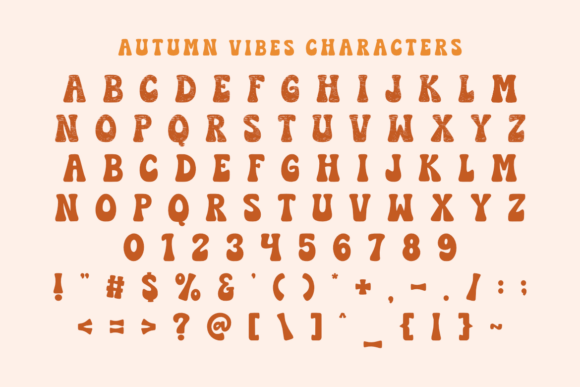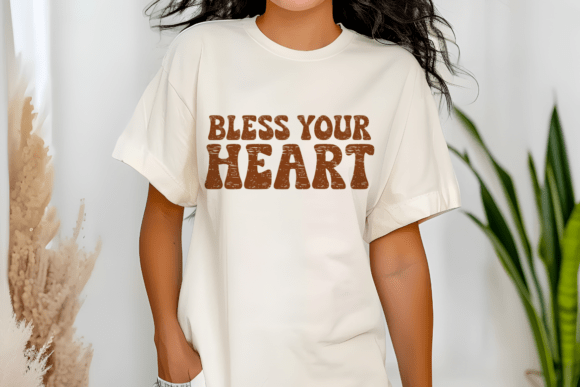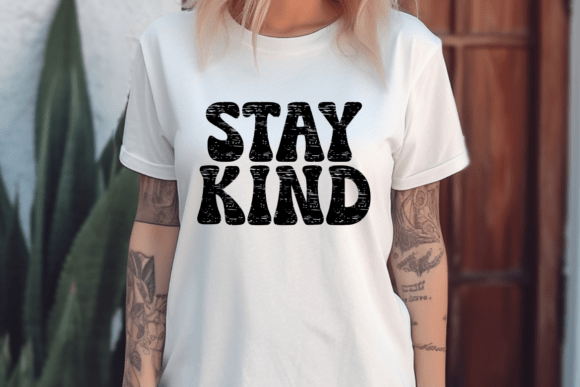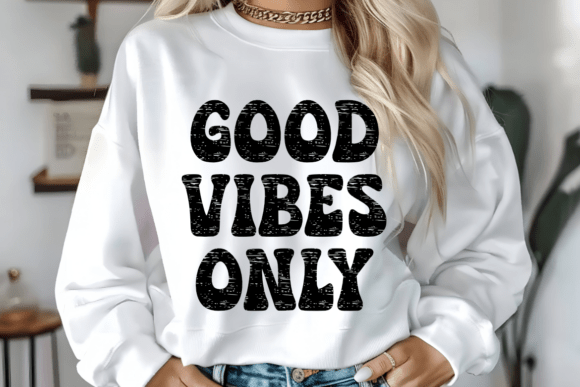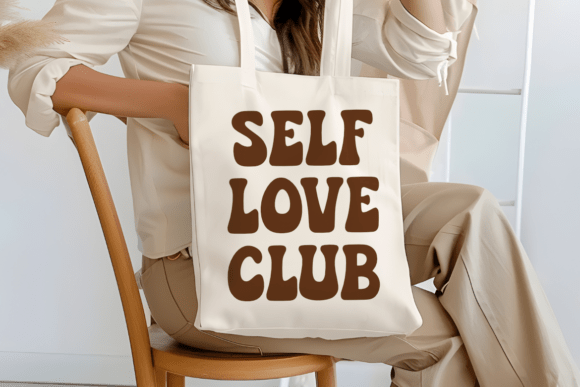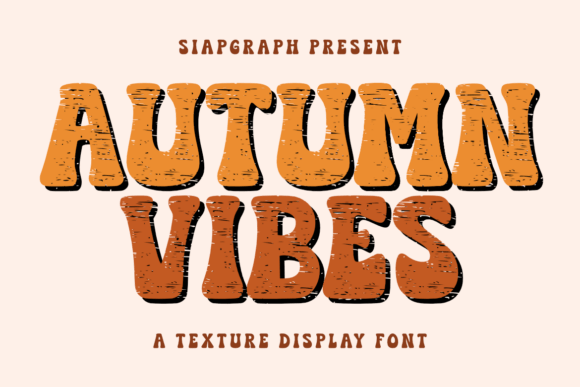
Introducing Autumn Vibes Font: The Perfect Blend of Retro Charm and Seasonal Warmth
As the leaves change colors and the air grows crisp, designers and crafters alike are on the lookout for the perfect font to capture the essence of the autumn season. Look no further than Autumn Vibes, a groovy, retro, and textured display font that embodies the cozy, nostalgic feeling of the 1970s and the beautiful, earthy colors of fall.
A Font that Embodies the Spirit of the Season
Autumn Vibes is more than just a font – it’s an experience. Its distressed, handmade appearance instantly evokes a sense of nostalgia and warmth, making it perfect for creators targeting the craft, POD (Print On Demand), and DIY markets. Whether you’re designing for digital cutting machines or various printing methods, this font is sure to bring a touch of autumnal charm to any project.
So, what can you create with Autumn Vibes? The possibilities are endless! Here are just a few ideas to get you started:
- Crafting SVG designs for cutting machines
- T-shirt designs that stand out
- Mug designs that make perfect gifts
- Tote bag designs that are both functional and fashionable
- Poster designs that capture the essence of the season
- Vinyl decals that add a touch of personality to any room
- Sublimation projects that showcase your creativity
- Scrapbooking designs that tell a story
- Logos, branding, and packaging that make your business stand out
Perfect for Holiday Themes and Beyond
Autumn Vibes is not just limited to general fall celebrations. Its playful and bold style makes it perfect for holiday themes such as:
- Thanksgiving: Add a touch of warmth and gratitude to your designs
- Halloween: Create spooky-ooky designs that are both fun and eerie
- Christmas: Bring a cozy feel to your holiday designs with a vintage twist
But it’s not just limited to holidays. This font is also great for:
- Children’s apparel: Create fun and playful designs that kids will love
- Educational materials: Add a touch of personality to your teaching resources
- Product labels: Make your products stand out with a unique and eye-catching font
Why Choose Autumn Vibes Font?
So, why choose Autumn Vibes font for your next project? Here are just a few reasons:
- Unique and eye-catching design that captures the essence of the autumn season
- Distressed, handmade appearance that adds a touch of nostalgia and warmth
- Perfect for a wide range of design projects, from crafting to packaging
- Playful and bold style that’s perfect for kids’ designs and educational materials
Get Ready to Fall in Love with Autumn Vibes
If you’re looking for a font that embodies the spirit of the autumn season, look no further than Autumn Vibes. With its unique blend of retro charm and seasonal warmth, this font is sure to become a favorite in your design arsenal. So why wait? Get ready to fall in love with Autumn Vibes and bring a touch of autumnal magic to your next design project.
In conclusion, Autumn Vibes font is a must-have for designers and crafters looking to add a touch of autumnal charm to their projects. With its distressed, handmade appearance and playful, bold style, it’s perfect for a wide range of design projects, from crafting to packaging. So go ahead, give it a try, and see the magic of Autumn Vibes for yourself!